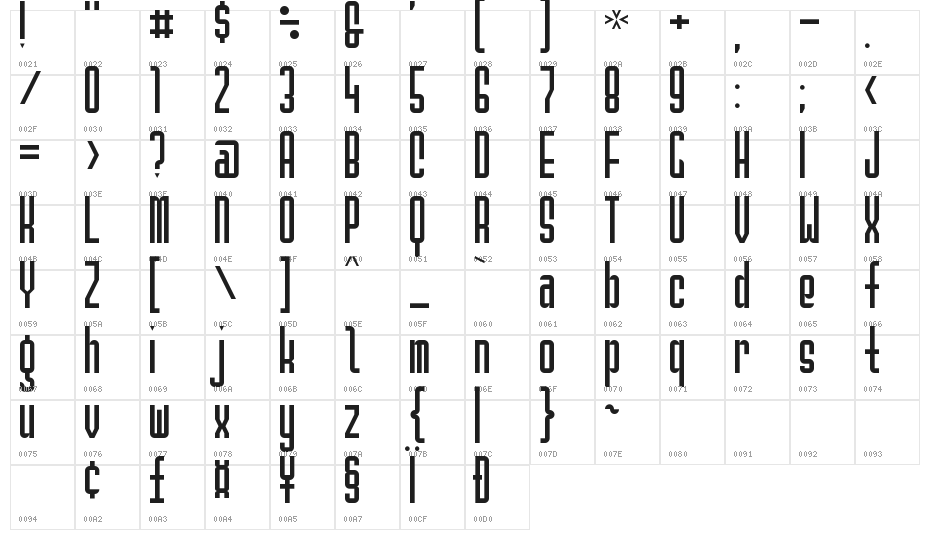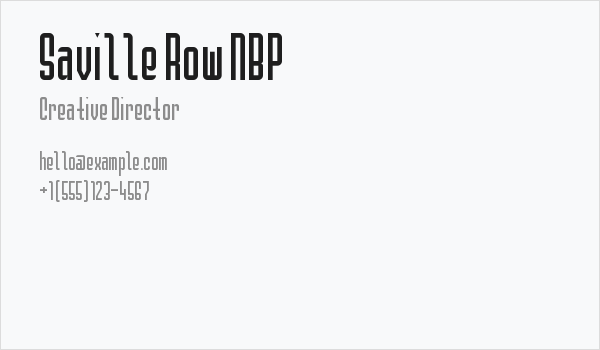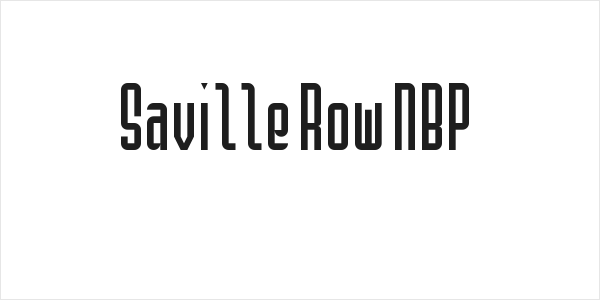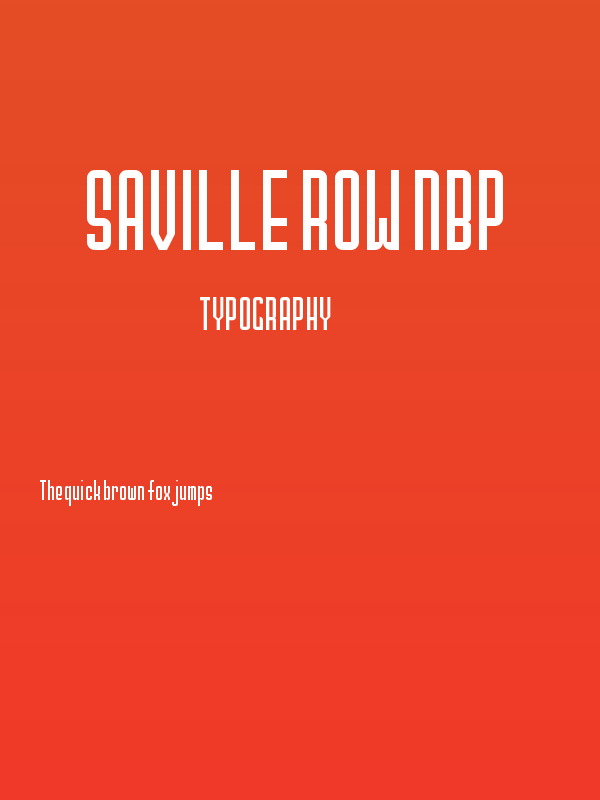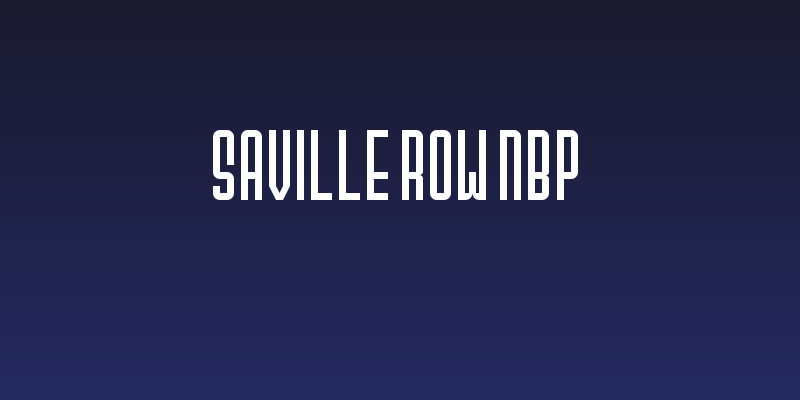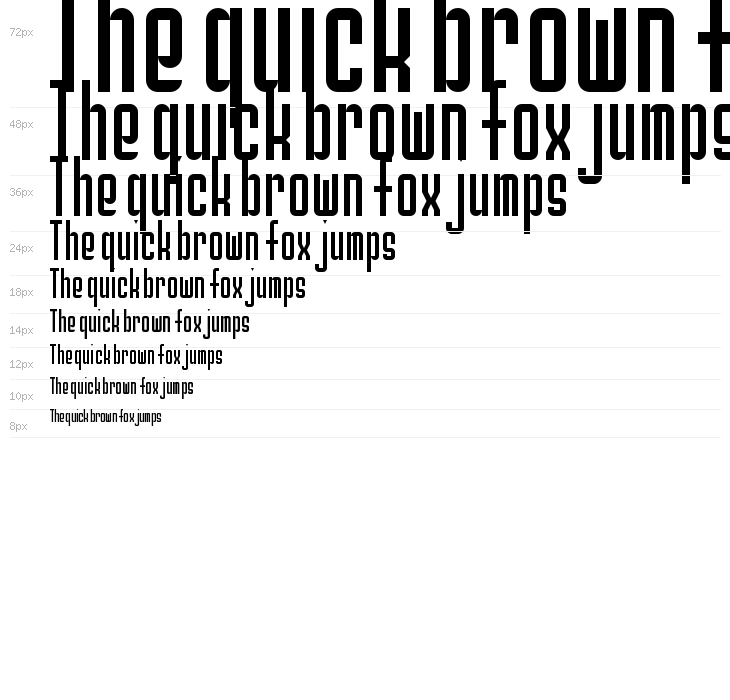
Saville Row NBP Font
Saville Row NBP Description
This font features a unique and bold design with a modern, geometric aesthetic. The characters are tall and narrow, with a strong vertical emphasis and minimal curves, giving it a distinctive, almost futuristic appearance. The uppercase letters are particularly striking, with their elongated forms and sharp angles. The lowercase letters maintain a consistent style, ensuring readability while retaining the font's unique character. Numbers and special characters are designed to match the overall style, making this font versatile for various applications. The consistent stroke width throughout the characters adds to its bold and impactful presence.